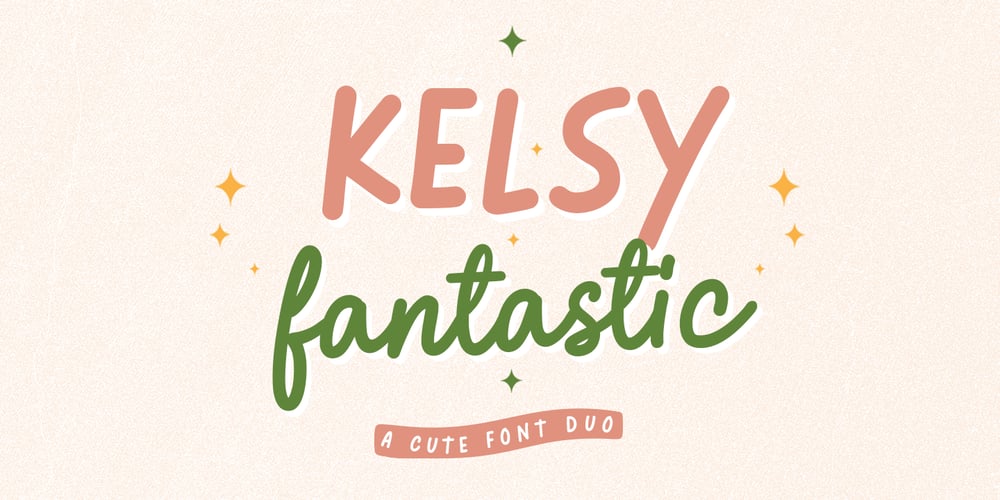
Kelsy Fantastic Font Family was designed by Mulkan Nazir and published by Great Studio. Kelsy Fantastic contains 2 styles and family package options. Kelsy Fantastic is a charming and cute new hand-lettered font duo – perfect for casual type in greeting cards, illustrations, quotes, quaint branding, book covers, children’s books, packaging and so much more. Suitable for short and sweet quotes, as well as longer meaningful paragraphs. Designed and kerned with care and love to make using it a breeze. Please don’t hesitate to contact me if you have any questions! Happy creating!